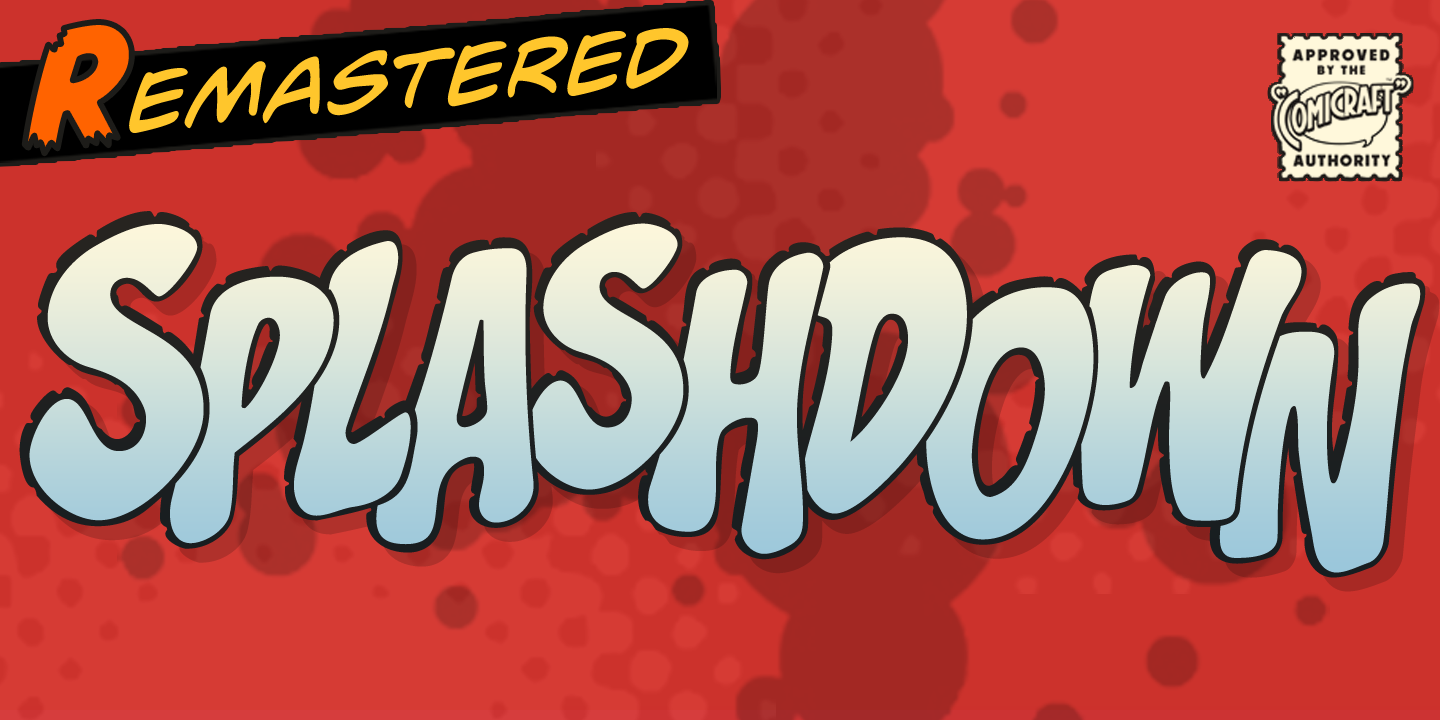
Splashdown Font is ideal for water sports branding, aquatic event graphics, swimming pool signage, beach resort marketing, marine adventure companies, nautical entertainment projects, and dynamic splash campaigns.
What makes Splashdown Font exciting is its fluid energy and aquatic dynamism, featuring water-inspired letterforms that capture the essence of splashing motion while delivering refreshing visual impact and maritime authenticity.
The Splashdown Font family includes Light, Regular, Medium, Bold, and Heavy weights, plus splash variants and aquatic alternates that enhance the font's dynamic character and water-themed possibilities.
Splashdown Font Free Download embodies the exhilarating energy of aquatic adventures and water-based excitement through dynamic typography design. This refreshing typeface captures the thrilling moment of impact and the invigorating power of water sports, creating an energetic visual language that speaks to water enthusiasts and adventure seekers who value aquatic experiences, marine excitement, and the refreshing freedom of water-based activities. The font's dynamic character and aquatic appearance make it perfect for water sports companies, beach resorts, and marine entertainment brands that want to communicate excitement, refreshment, and the invigorating appeal of aquatic adventure.
Water sports organizations and aquatic entertainment companies consistently choose Splashdown Font for projects that require authentic marine credibility and dynamic visual impact. The typeface's fluid construction and energetic personality make it exceptionally effective for swimming facilities, water parks, and marine adventure companies where aquatic excitement and water-based thrills are paramount. Each character has been designed with fluid precision to ensure maximum impact across all aquatic applications and water-themed environments.
The aquatic advantages of Splashdown Font extend beyond its water-themed appeal to include practical functionality for diverse marine applications. The font maintains excellent readability in wet conditions while delivering the distinctive character that creates memorable aquatic experiences and connects with audiences seeking genuine water-based excitement. Its comprehensive character set includes marine symbols and aquatic elements that make it particularly suitable for water sports documentation and marine communication.
Beach resorts, water parks, and marine adventure companies frequently incorporate Splashdown Font into their brand identity systems because of its ability to instantly convey aquatic excitement and water sports authenticity. The typeface's dynamic aesthetic helps establish credibility in competitive marine markets while appealing to customers who value water-based adventures, aquatic thrills, and the refreshing experiences that come from genuine marine excitement and water sports excellence.